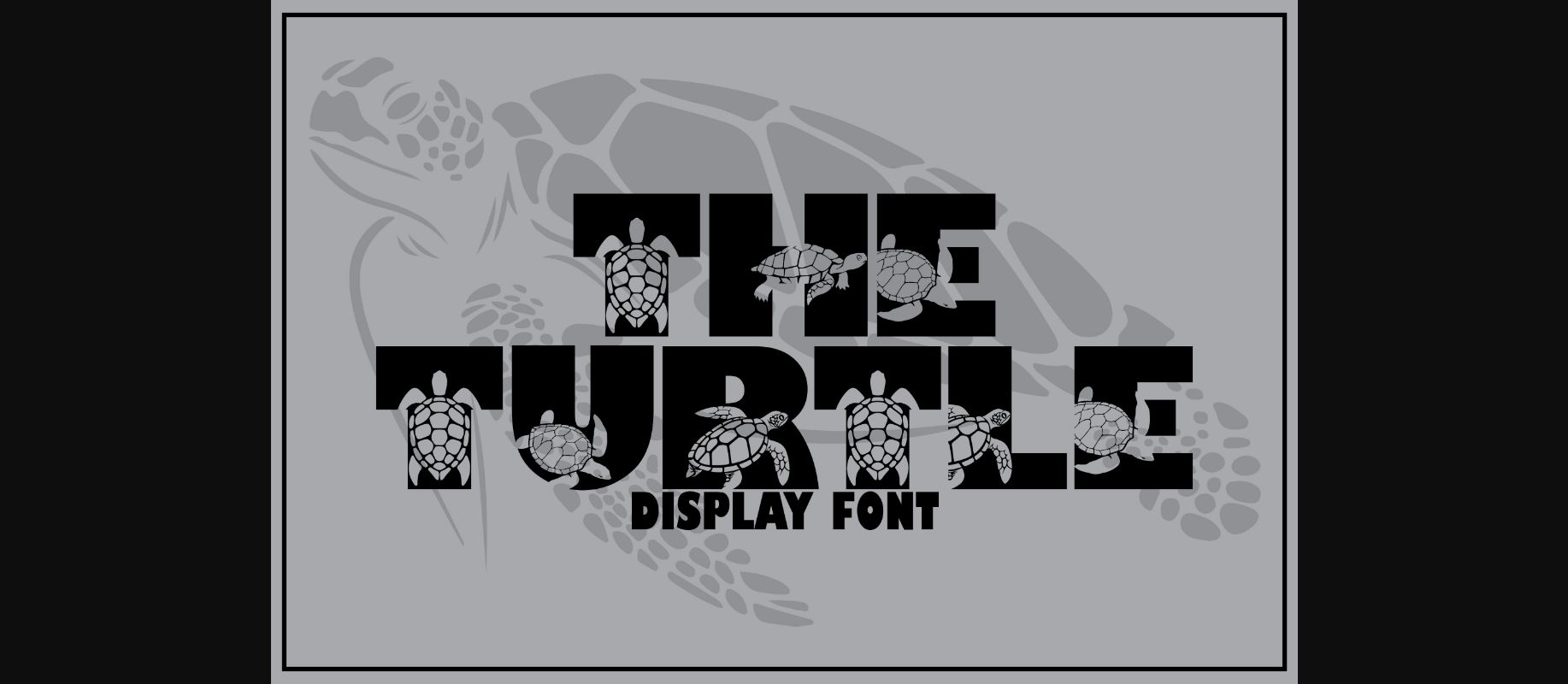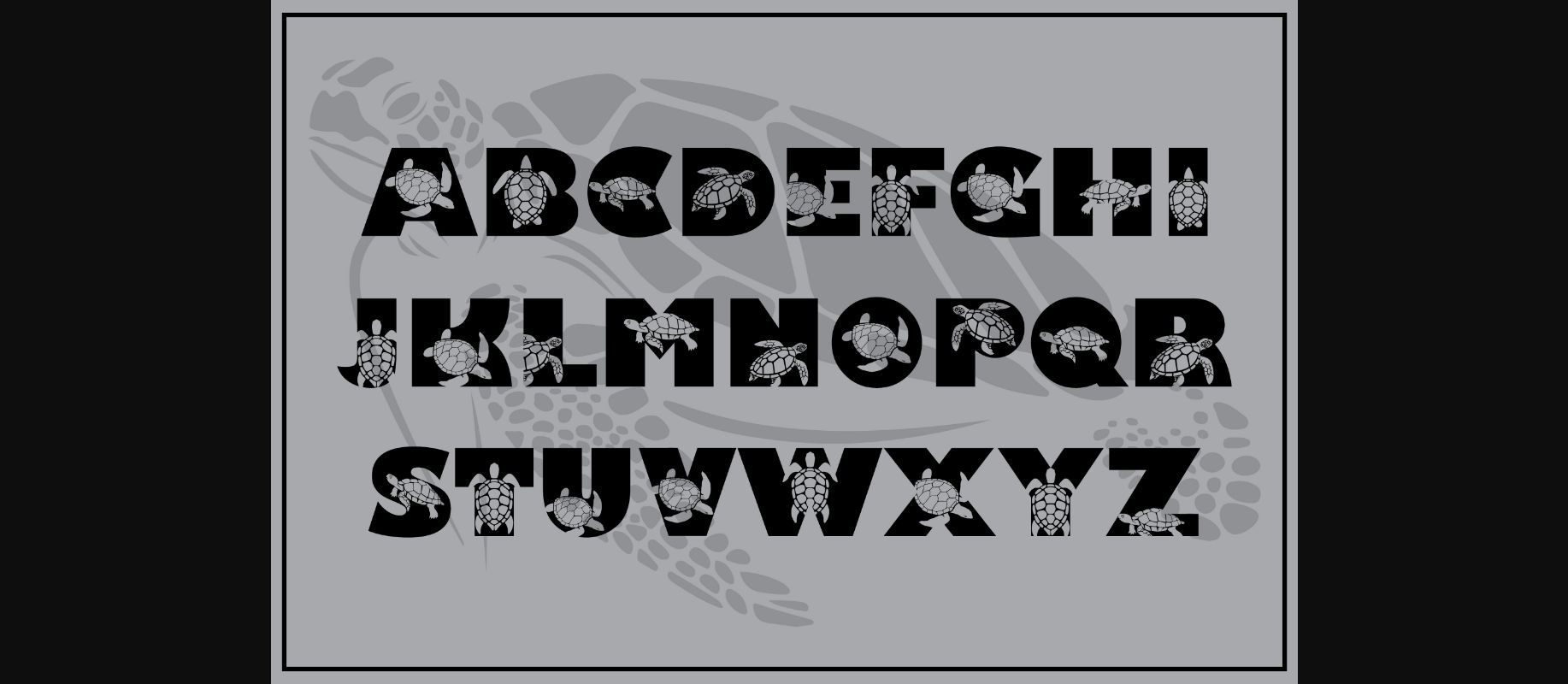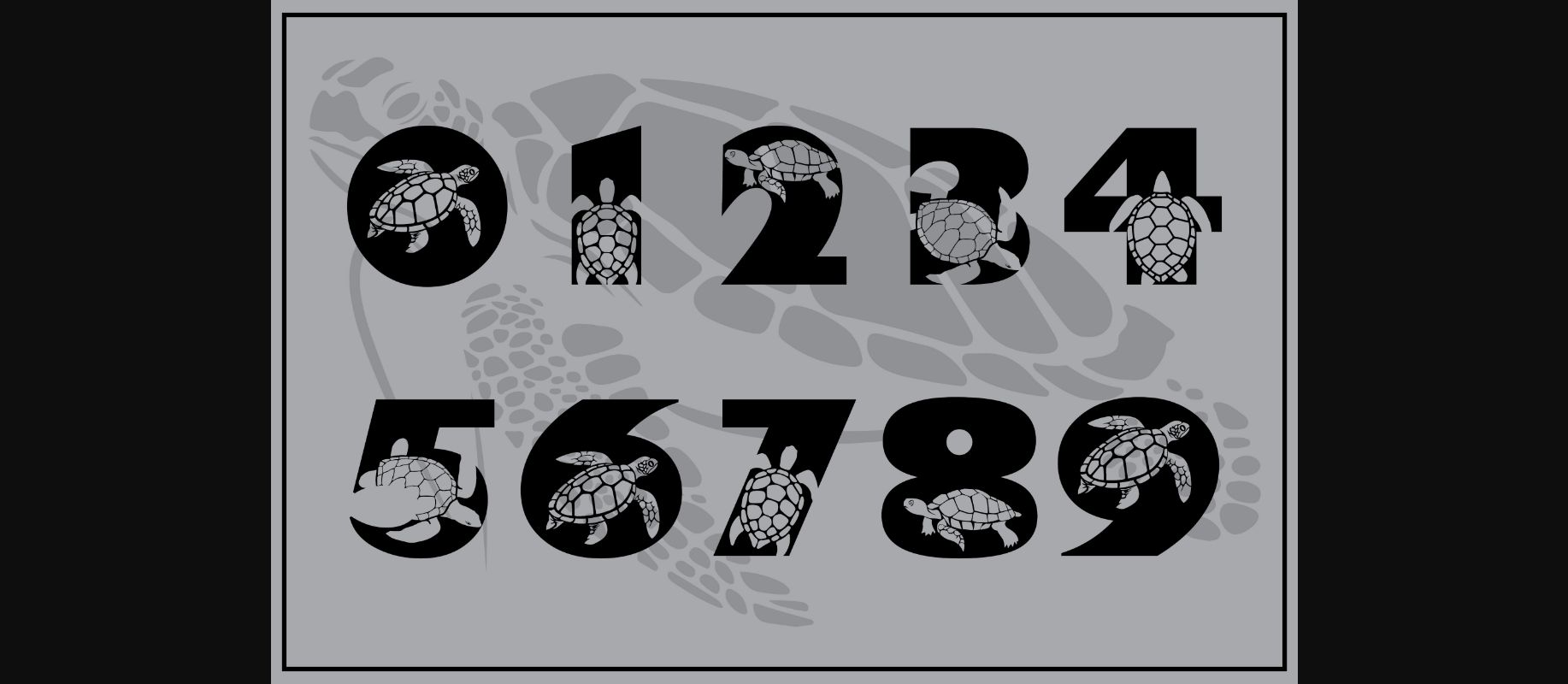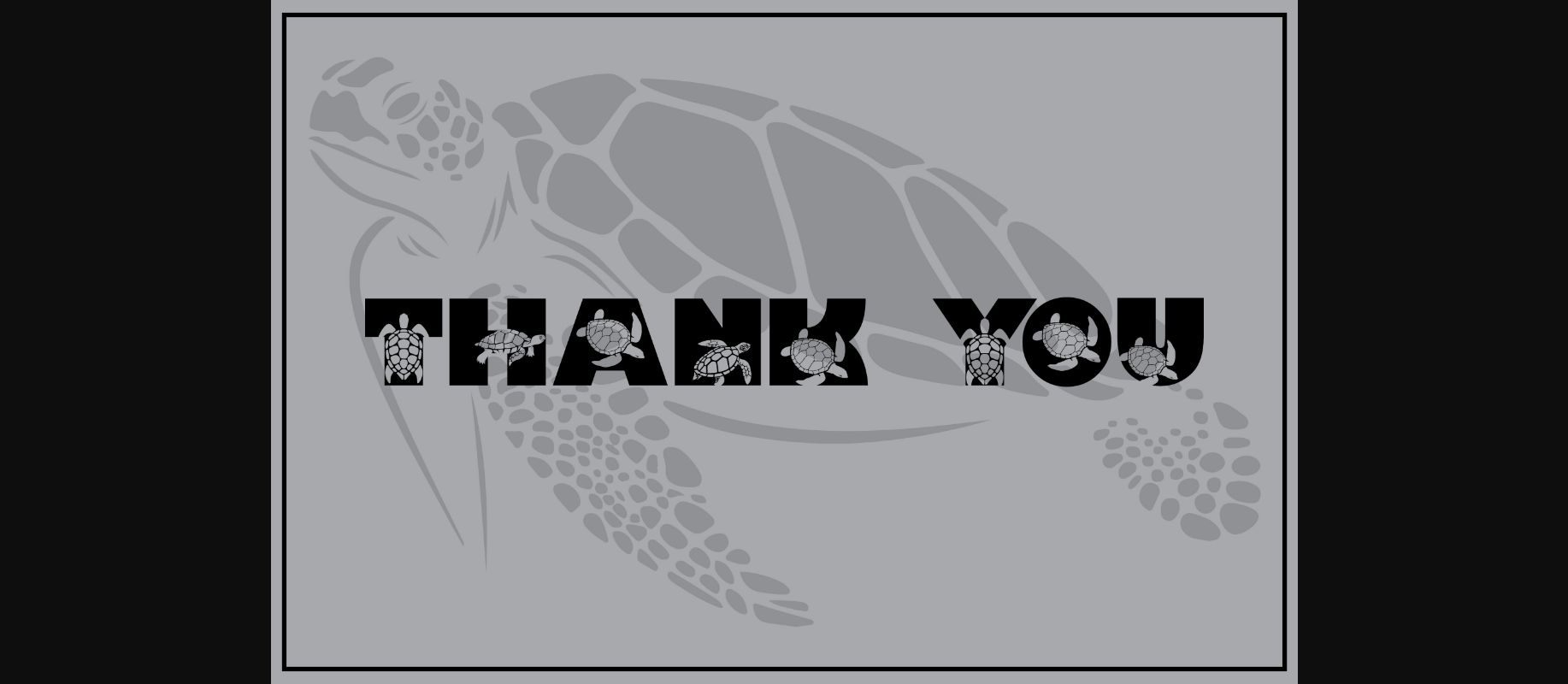
HomeDecorative FontsTheturtle Font Decorative Fonts Theturtle Font FacebookXPinterestWhatsApp 1 of 6 ... Theturtle Font Poster 2... Theturtle Font Poster 3... Theturtle Font Poster 4... Theturtle Font Poster 5... Theturtle Font Poster 6... About Theturtle Font TheTurtle is a dramatic decorative font. It is perfectly suitable for any design or crafty idea! Add it confidently to your projects and you will love the results! DOWNLOAD NOW People also explored Camping Font Holmeria Font Mensionery Bold Font Avea Summer Font Stainfishy Font Goodline Font Sophia Font Hello Handmade Font 281 0 TagsTheturtle Font Previous articleLove All Time FontNext articleInner Love Font LEAVE A REPLY Cancel reply Comment: Please enter your comment! Name:* Please enter your name here Email:* You have entered an incorrect email address! Please enter your email address here Website: Save my name, email, and website in this browser for the next time I comment. Personal Use Free Yesstea Personal Use Free Read more about this font Monofonto Personal Use Free Read more about this font Foo Personal Use Free Read more about this font Engine Personal Use Free Read more about this font BLOG Fonts That Capture the Spirit of New York City New York City is more than just a place—it’s an experience, a rhythm, a visual language... Top 10 Handwritten Fonts That Elevate Your Designs Free vs Paid Fonts: Why Investing in Premium Fonts Is Worth It 5 Fonts That Will Dominate Design Trends in 2026